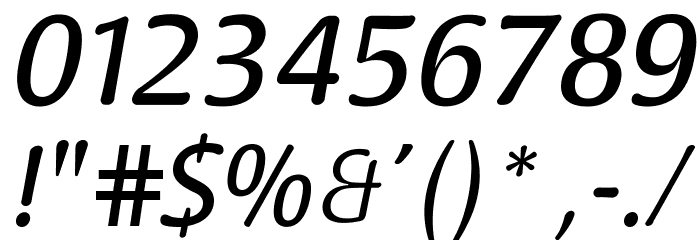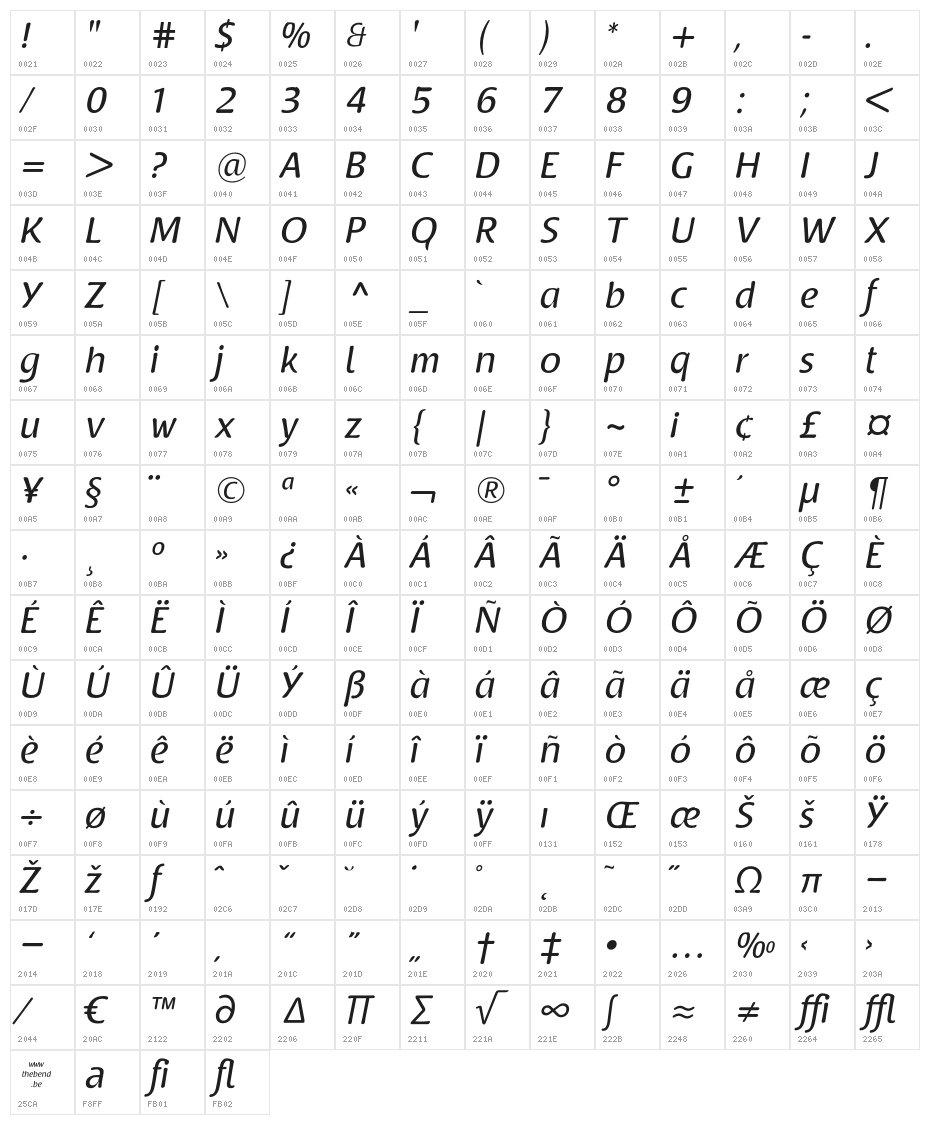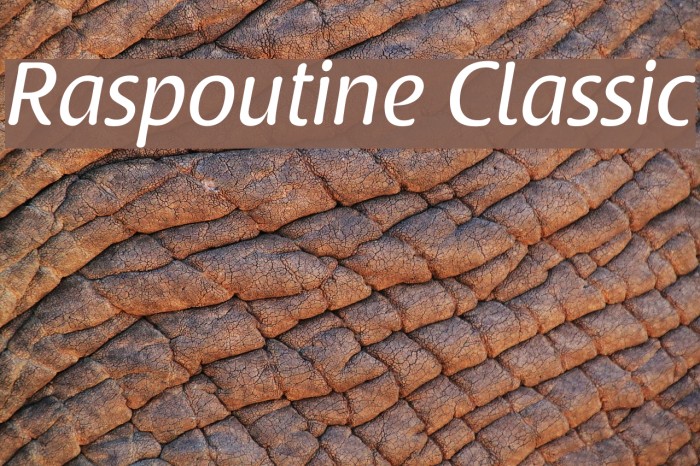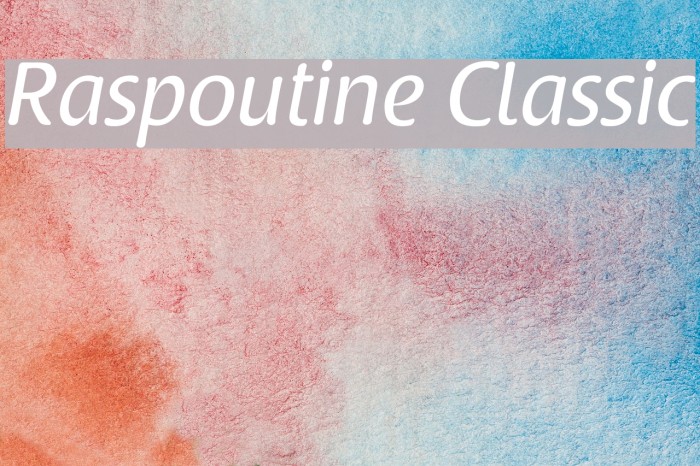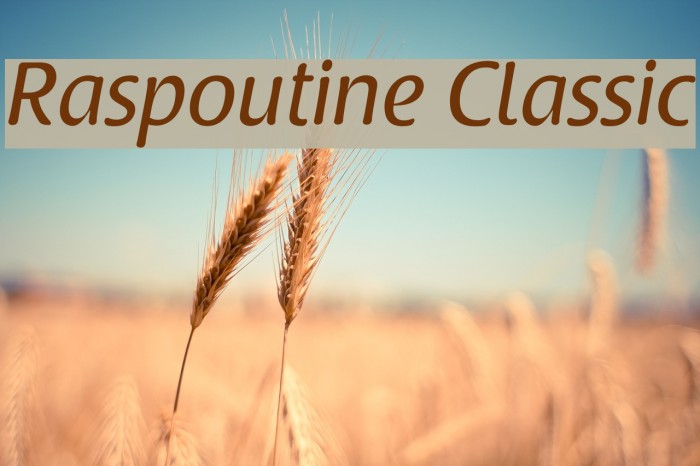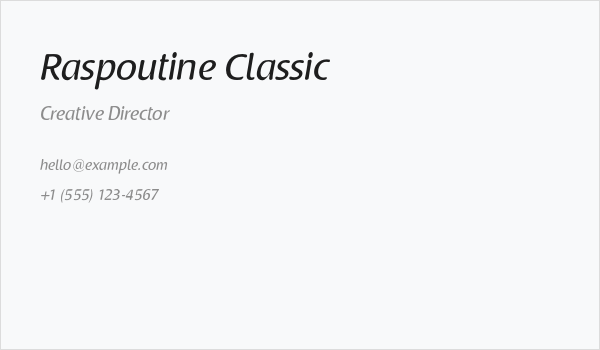
Raspoutine Classic Font
Raspoutine Classic Description
This font features a sleek and modern design with a slight italic slant, giving it a dynamic and forward-moving appearance. The characters are well-proportioned with a consistent stroke width, providing a clean and professional look. The uppercase letters are bold and assertive, while the lowercase letters maintain a harmonious flow. The numerals are clear and easy to read, making them suitable for various applications. Special characters are included, enhancing the font's versatility. Overall, this font exudes a contemporary style with a touch of elegance, making it suitable for a wide range of design projects.